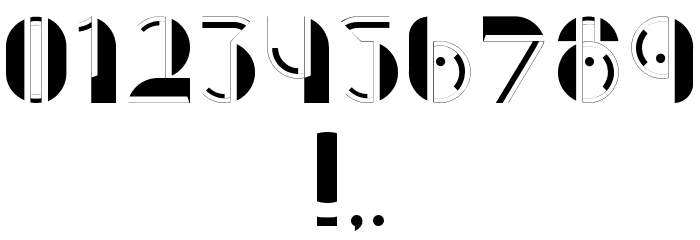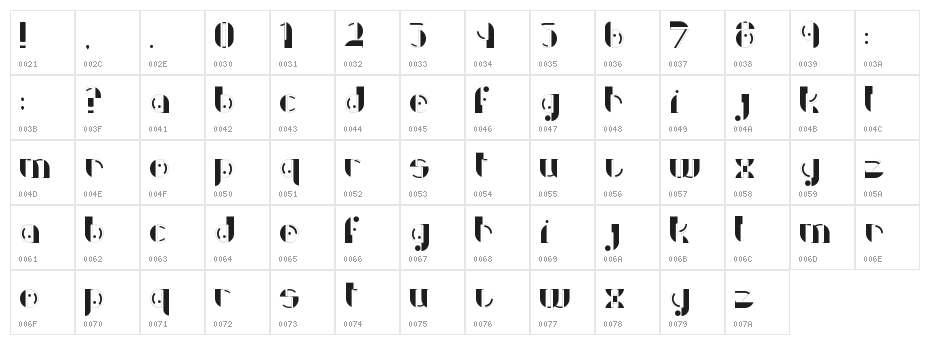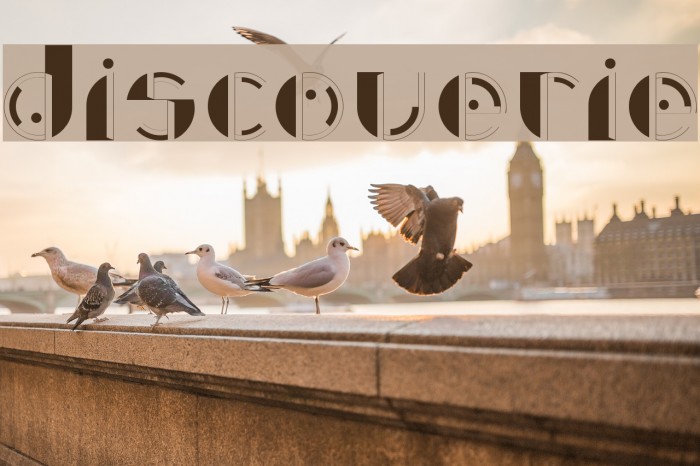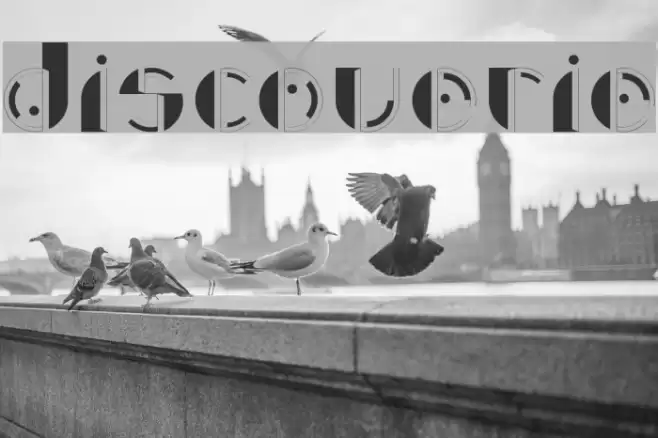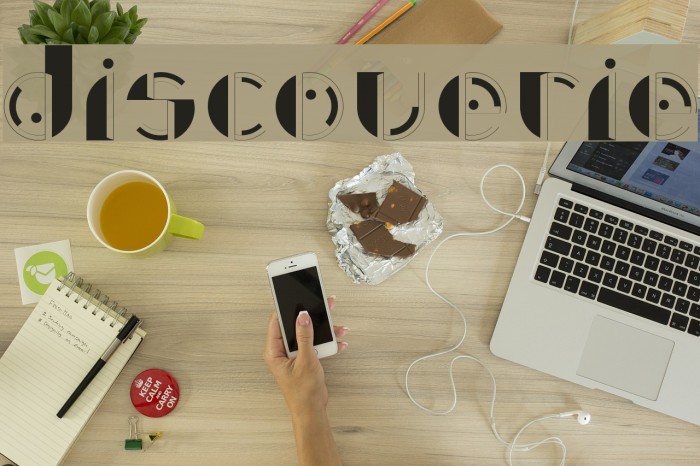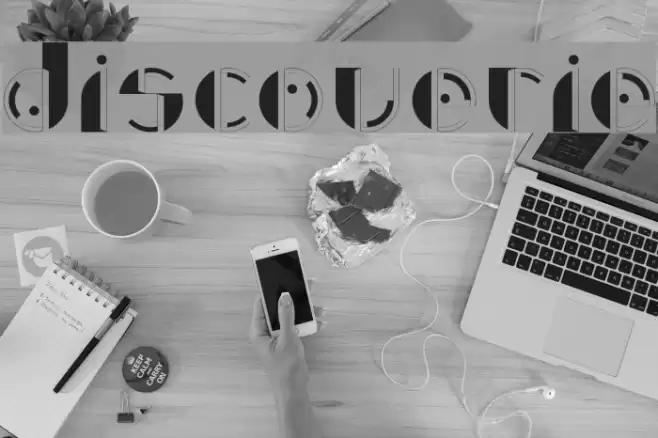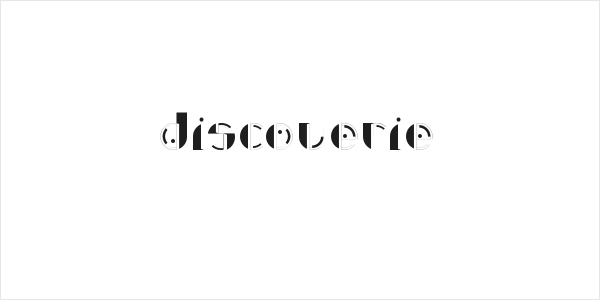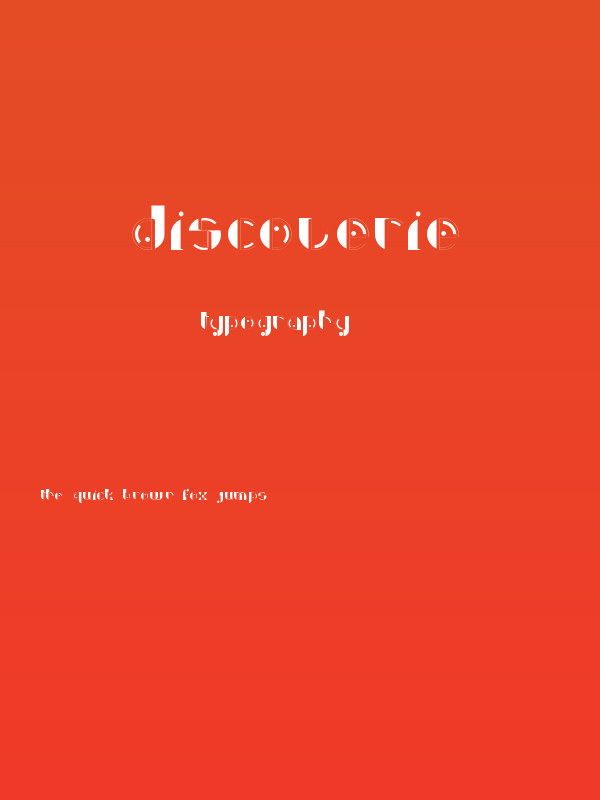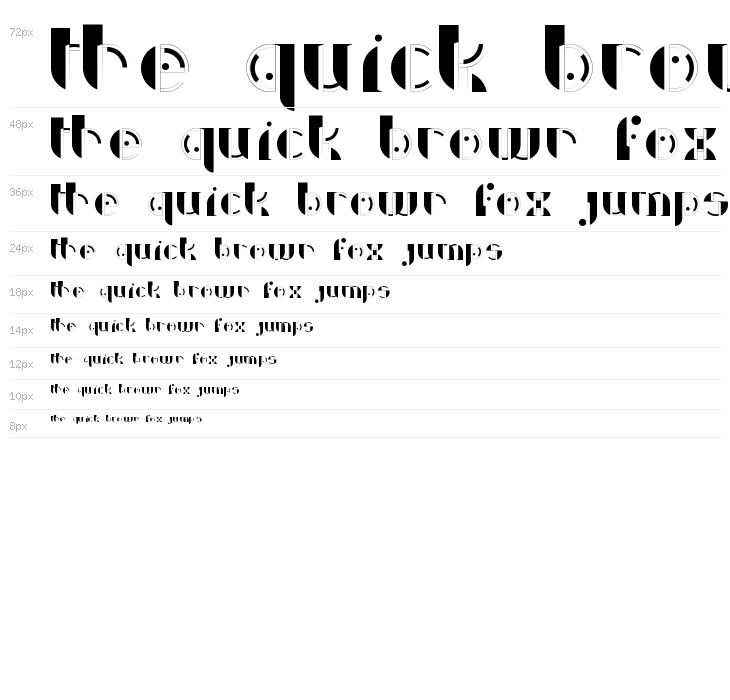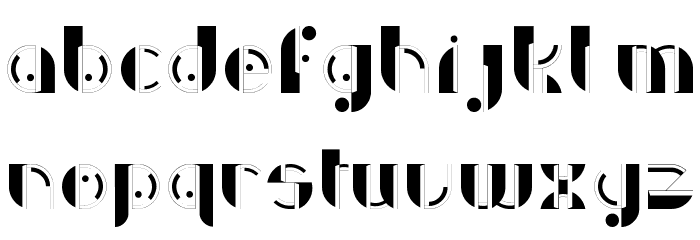
Discoverie Font
Discoverie Description
This font features a unique and modern design with a high contrast between thick and thin strokes. The characters are composed of geometric shapes, creating a futuristic and artistic appearance. The use of negative space is prominent, giving the font a dynamic and eye-catching look. The letters are bold and have a distinct style that makes them stand out, suitable for creative and innovative projects. The font's design is both decorative and functional, making it versatile for various applications.
| Proposed Projects | Ideal for branding, posters, album covers, and any project requiring a modern and artistic touch. |